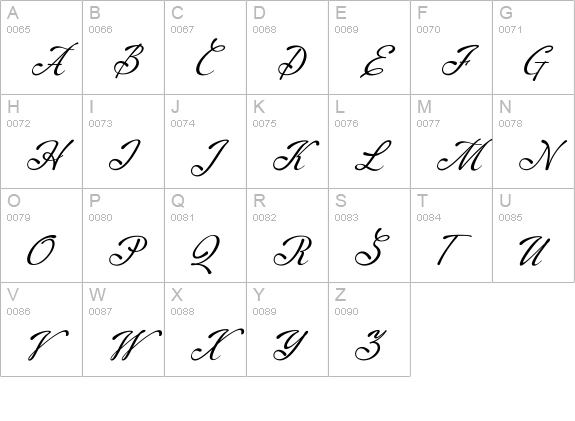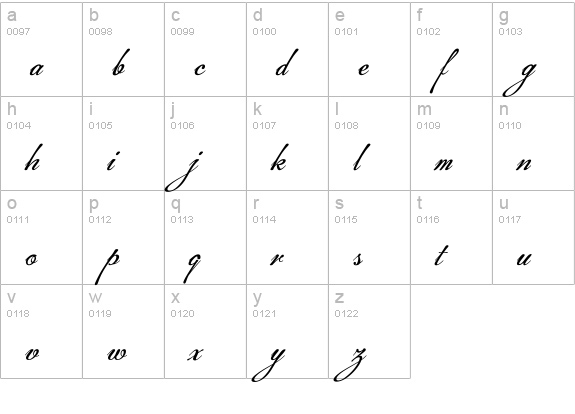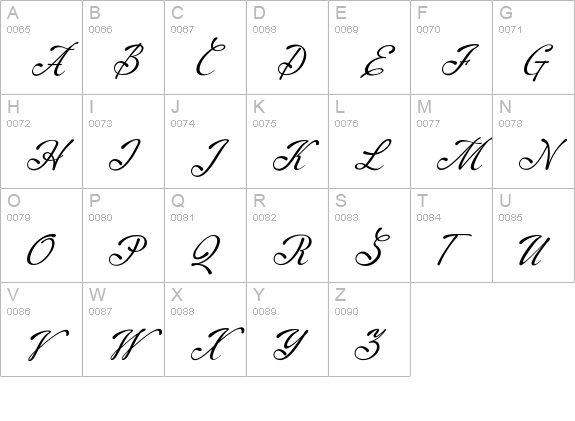
Machia Font Details
Machia font is a stunning display typeface that exudes elegance and sophistication. With its clean lines and modern aesthetic, this font is perfect for a wide range of design projects, from branding to editorial design. The sleek and stylish letterforms of Machia font make it a versatile choice for any creative endeavor. One of the best things about Machia font is that it is completely free to download! Yes, that's right - you can get your hands on this beautiful typeface without spending a dime. Simply head over to FontsMarket.com and grab your copy of Machia font today. Whether you're a professional designer or a casual creator, Machia font is sure to add a touch of class to your projects. Don't miss out on this fantastic opportunity to elevate your designs with the exquisite Machia font.